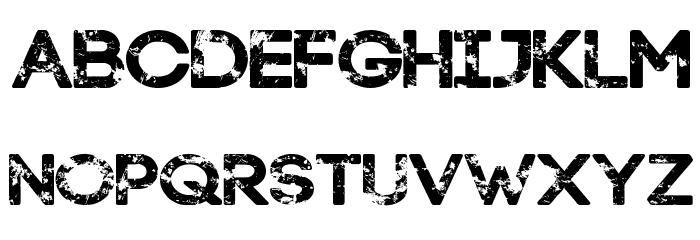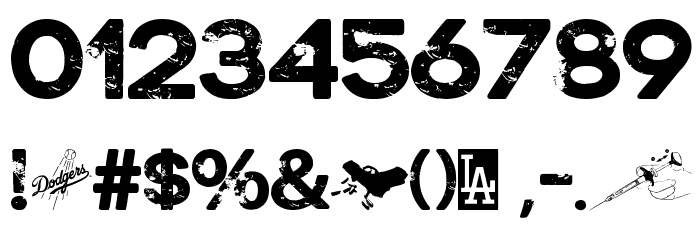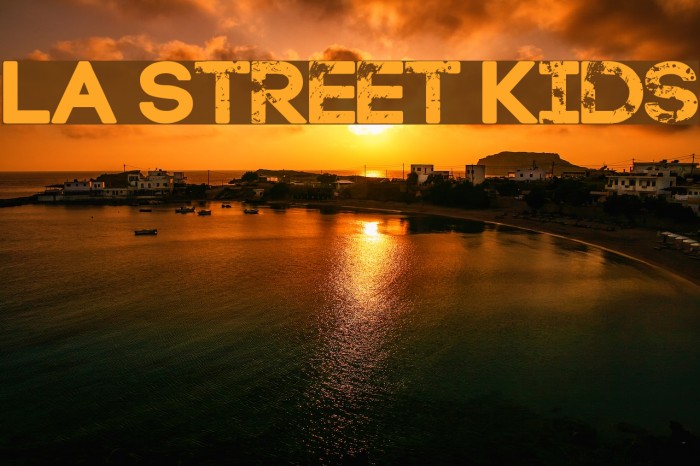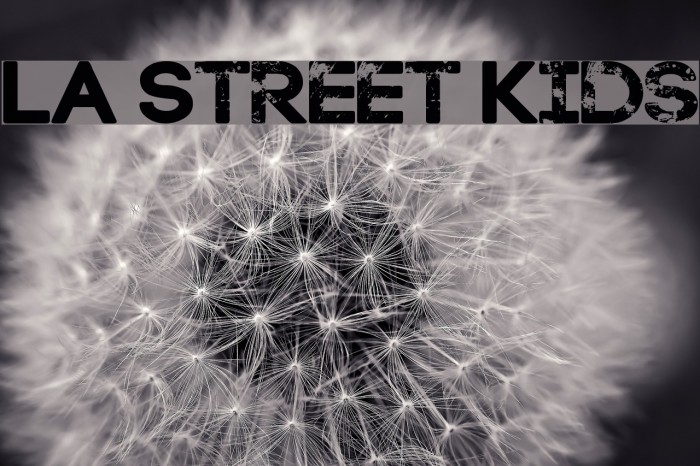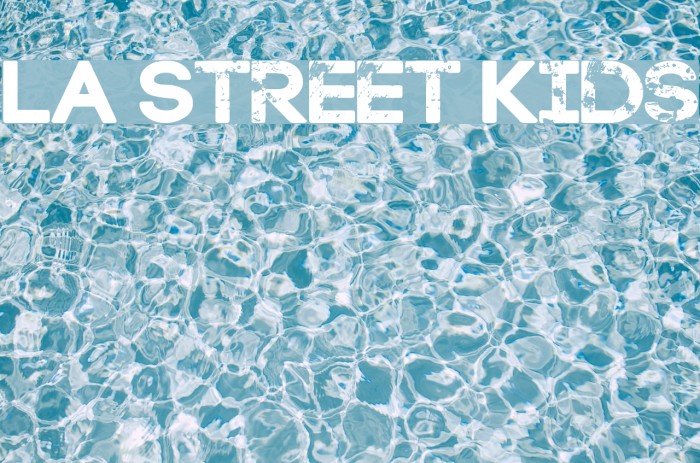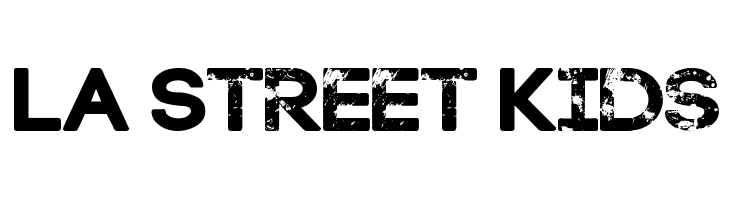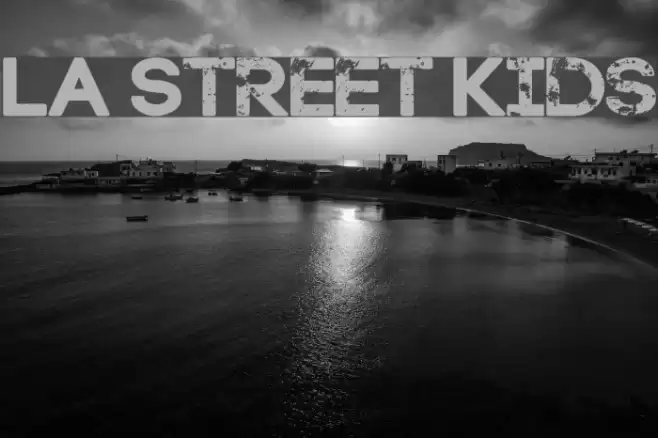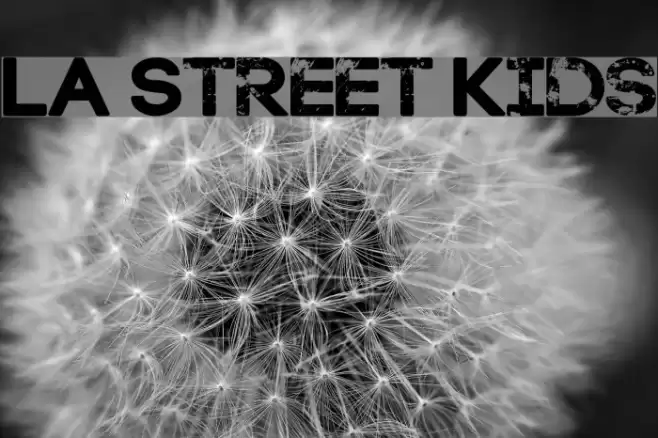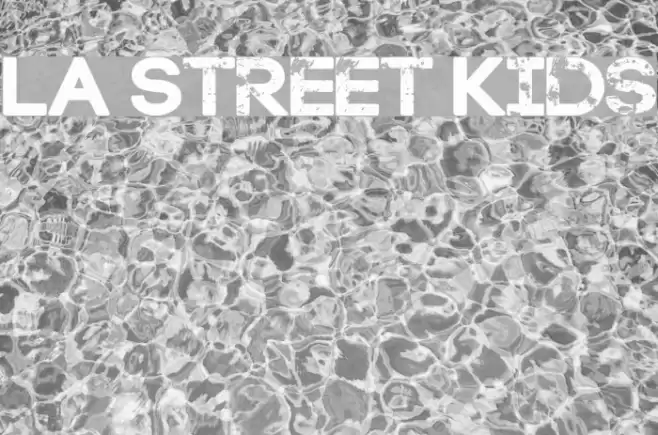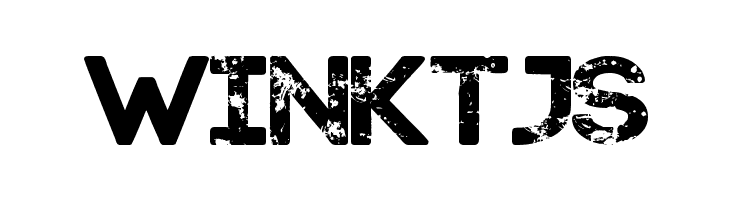
LA Street Kids Font
This font features a bold and impactful design with a distressed, grunge texture that gives it a rugged and urban feel. The uppercase letters are prominent and strong, while the numbers and special characters maintain the same distressed style, adding to the overall edgy aesthetic. The font's design is reminiscent of street art or graffiti, making it ideal for projects that require a bold statement. The characters are evenly spaced, ensuring readability despite the textured appearance. This font is perfect for creating eye-catching headlines, posters, or branding materials that need a touch of urban flair.
A bold, distressed font with an urban, grunge aesthetic.
- Proposed Projects: Ideal for streetwear branding, music album covers, urban-themed posters, and edgy marketing materials.
- Overall Style: Urban, Grunge
- Use Case: Headlines, Posters, Branding